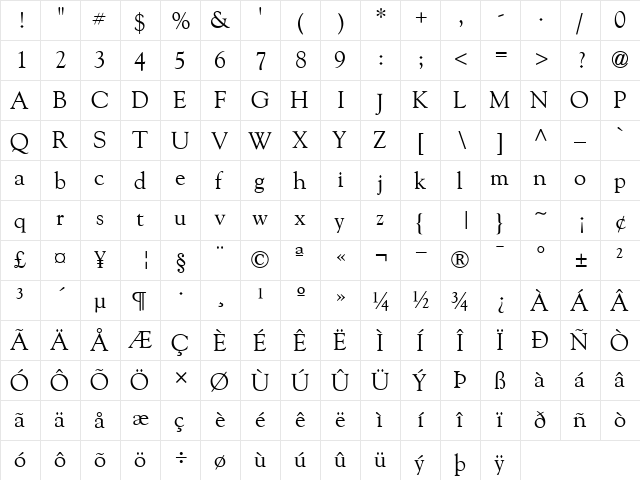
GoudyOldStyle Roman
Design Context for GoudyOldStyle Typeface
GoudyOldStyle brings classic typographic sensibility to the table — its serifs and measured letterforms reflect centuries of print heritage.
Pro Tip: Set GoudyOldStyle with slightly loose tracking in headlines to let each letterform's detail read clearly at display sizes.